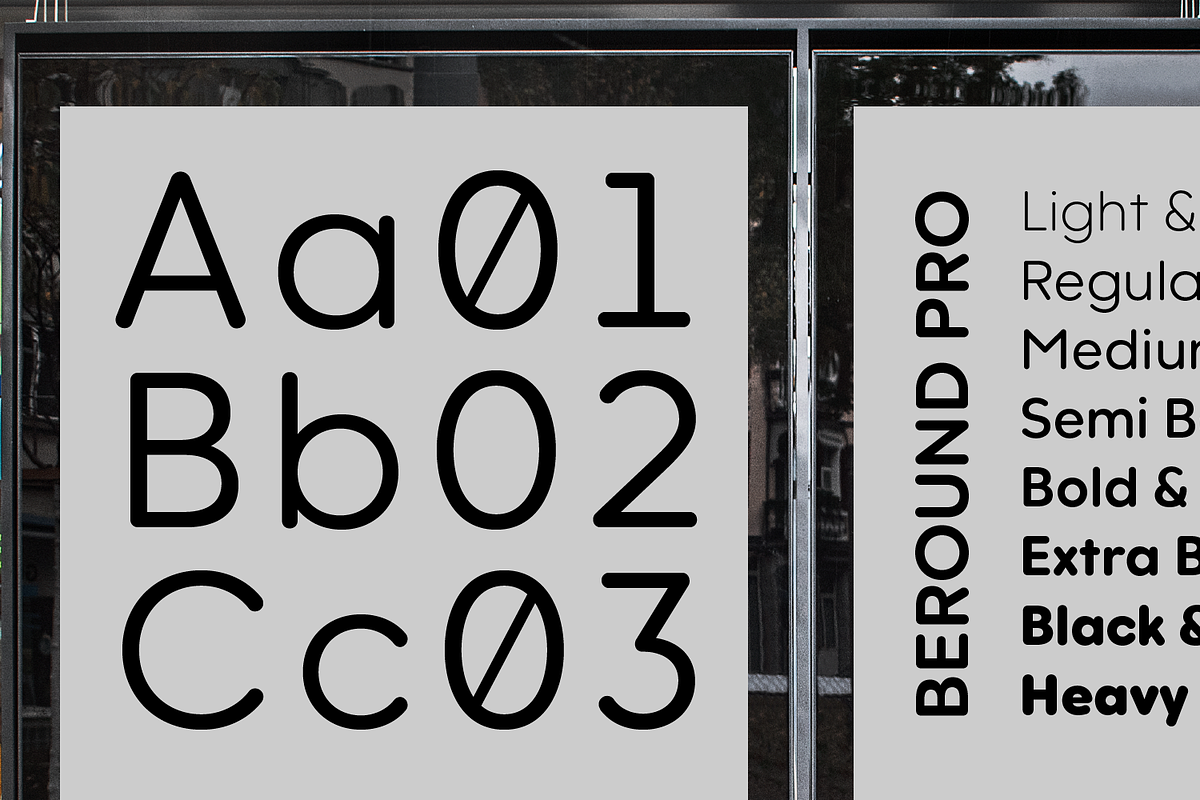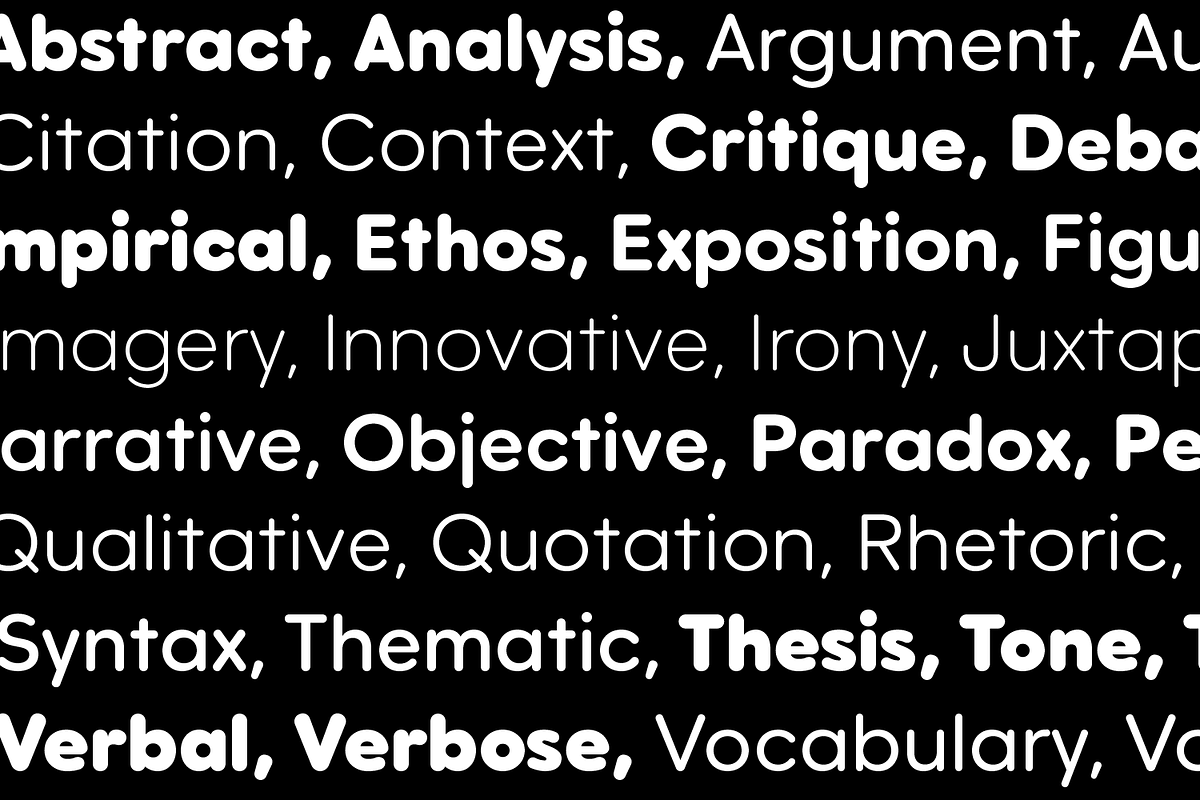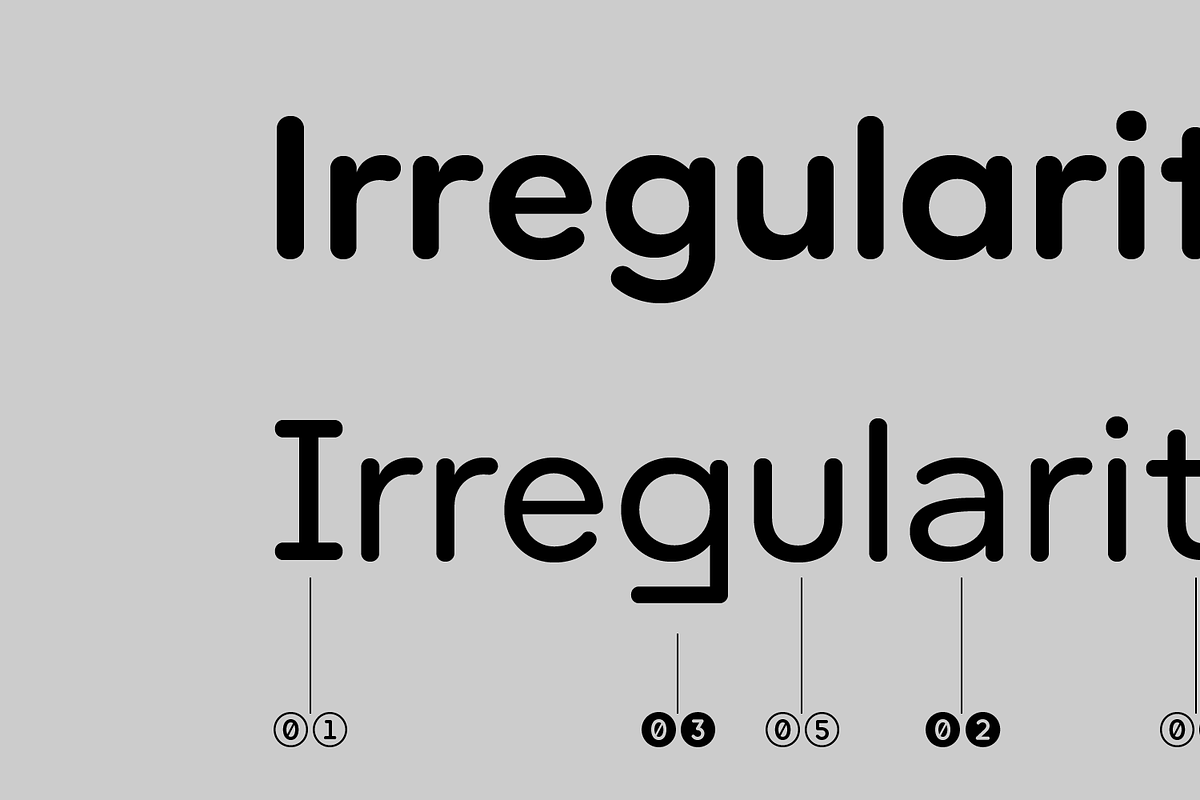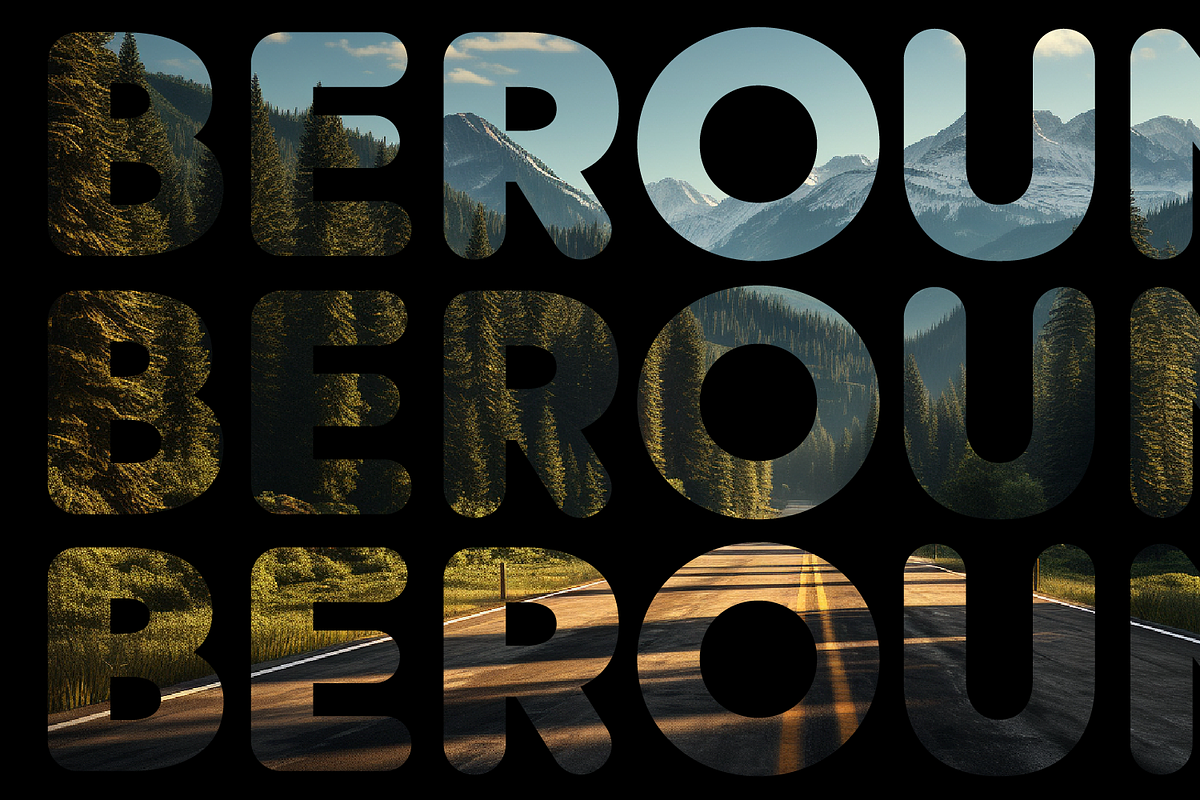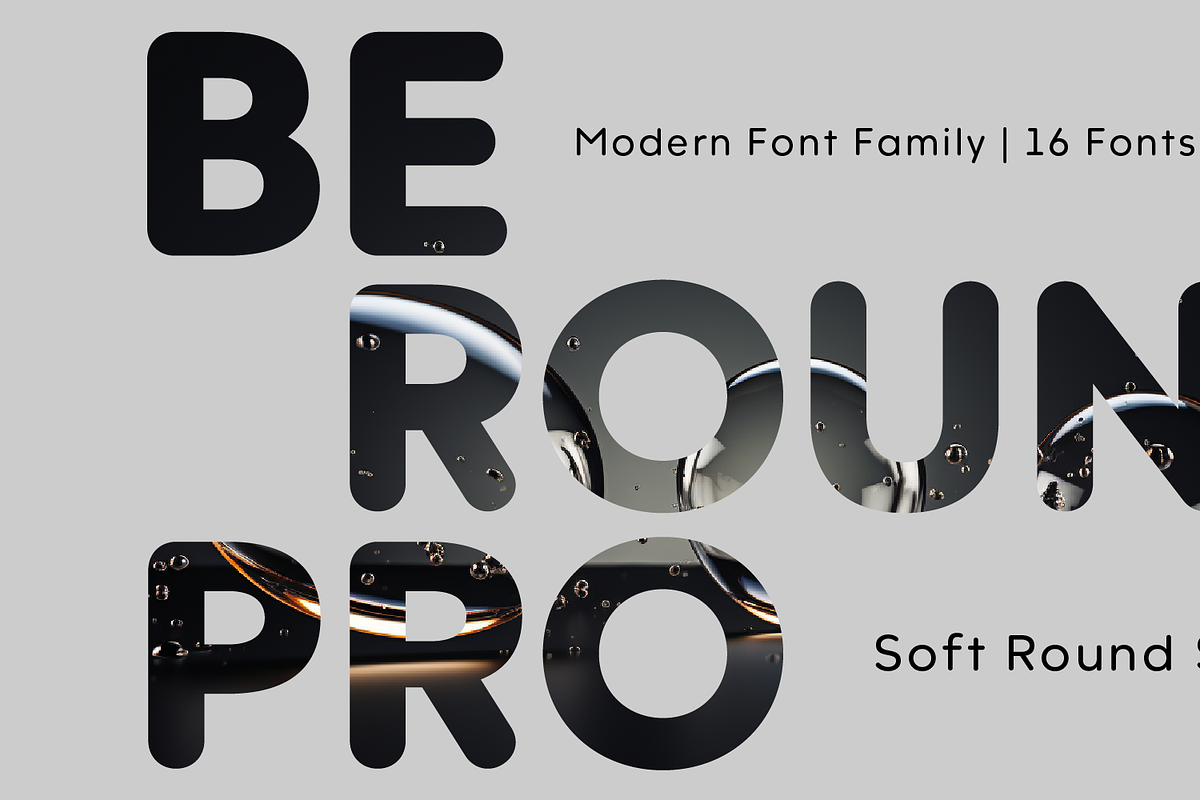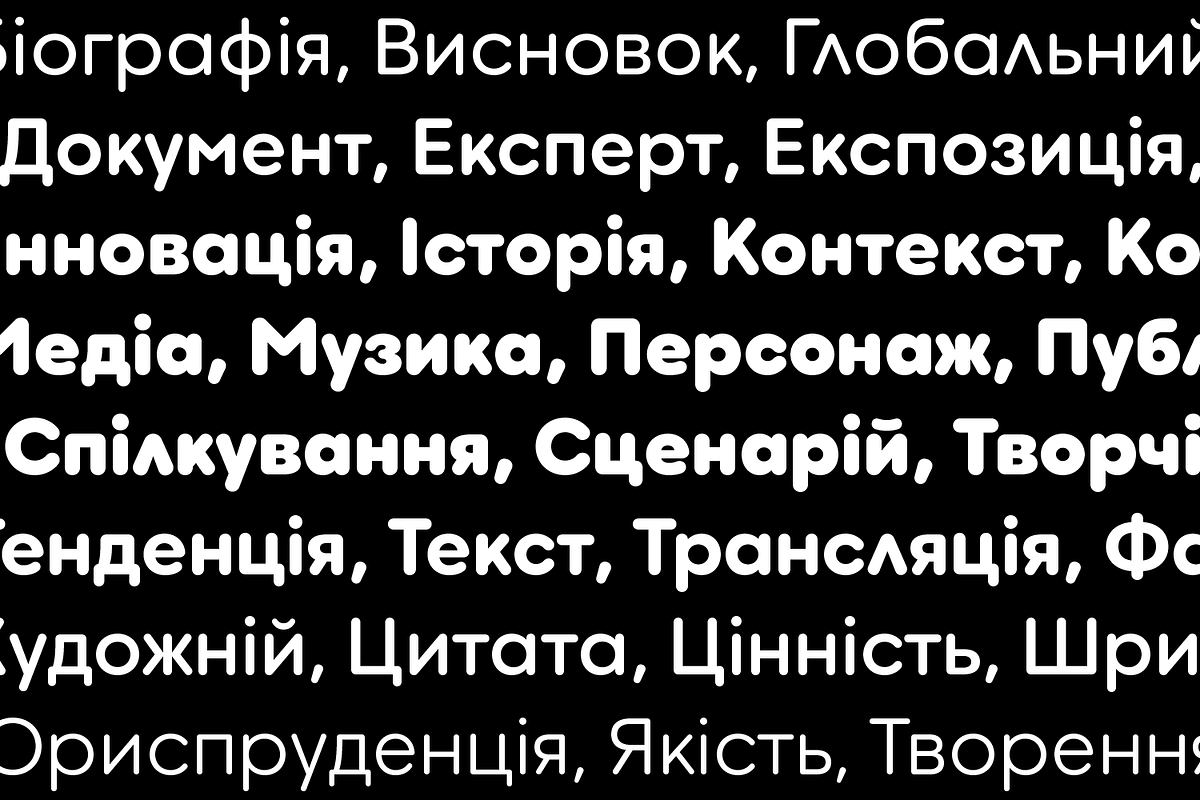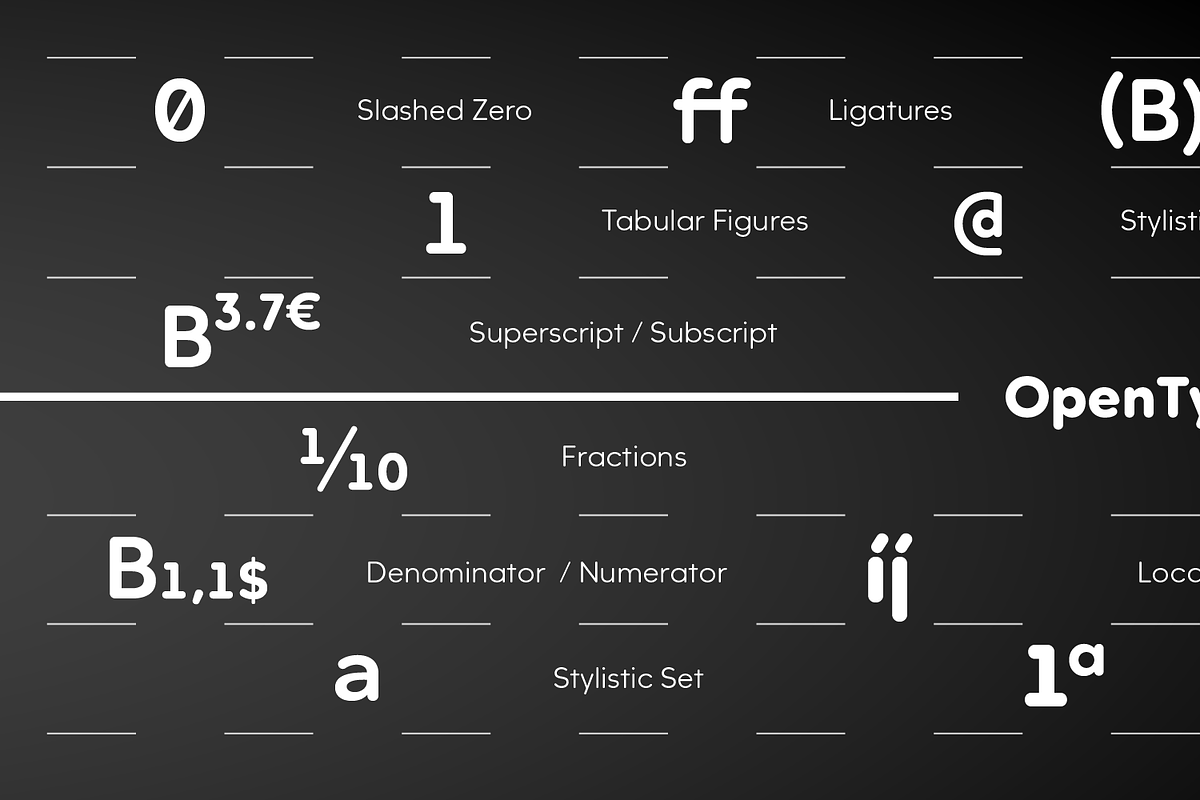
Beround Pro
Beround Pro is a contemporary typeface based on the Beround font family, featuring soft, rounded shapes. Includes support for Latin, Cyrillic, and Greek. It offers 16 weights, including 8 uprights and matching italics. Each font includes 1,099 glyphs and supports OpenType features, making it a versatile choice for branding, marketing, and digital design.